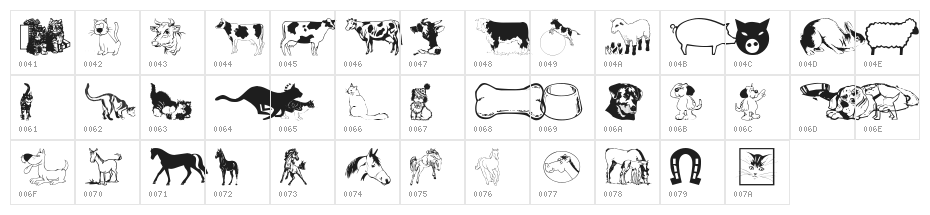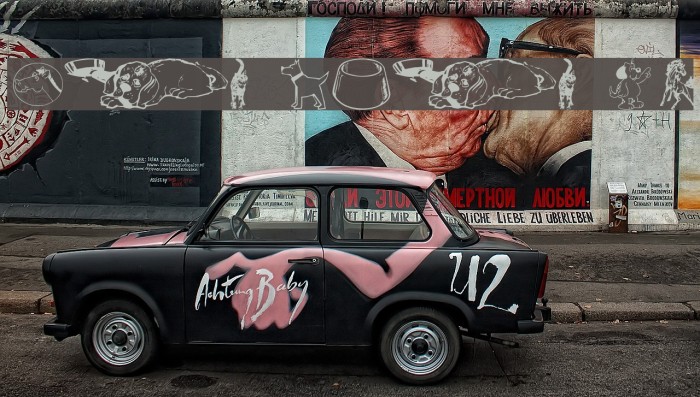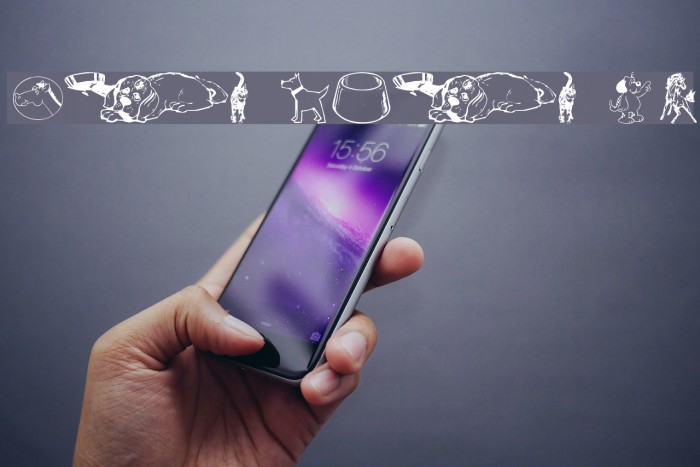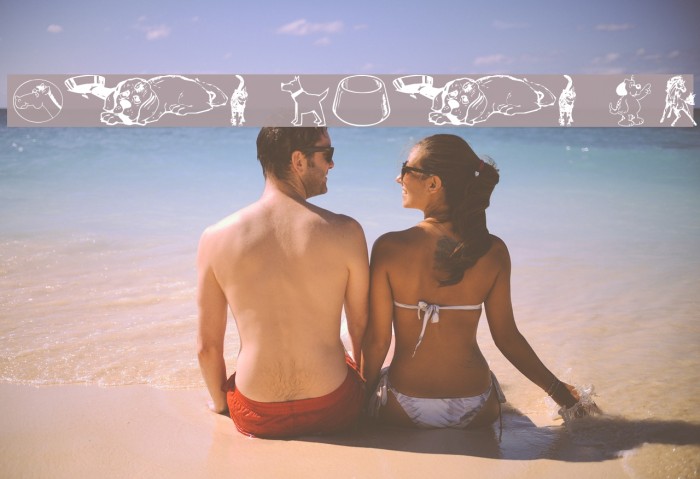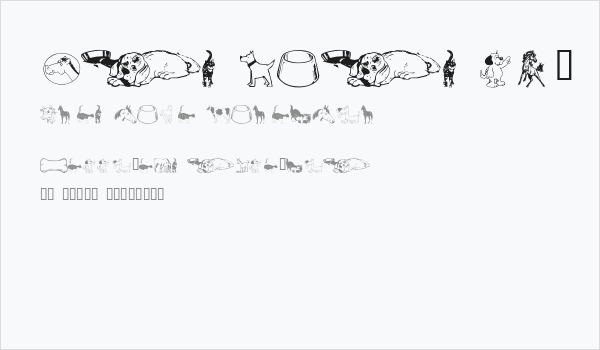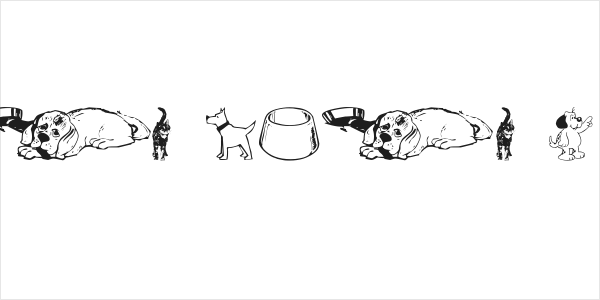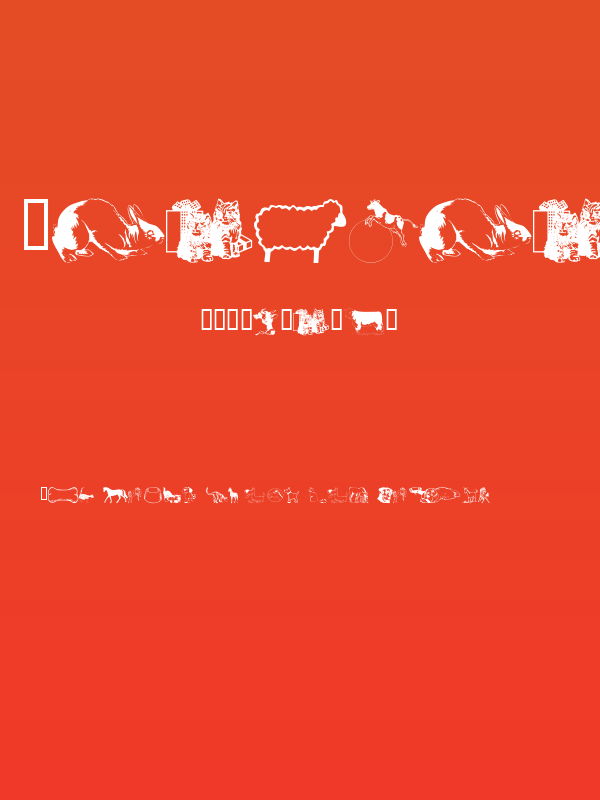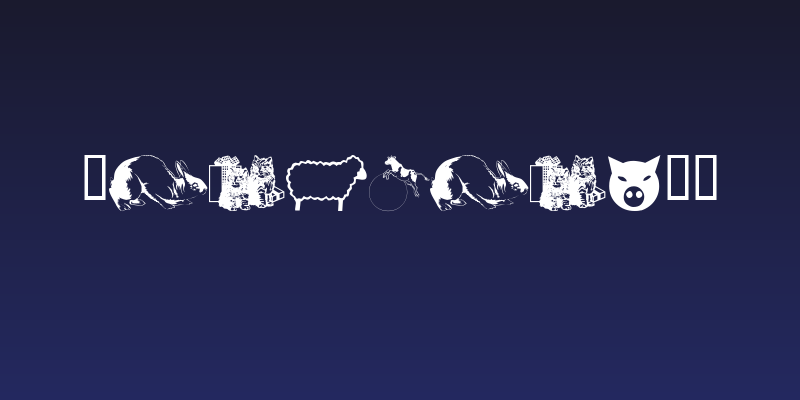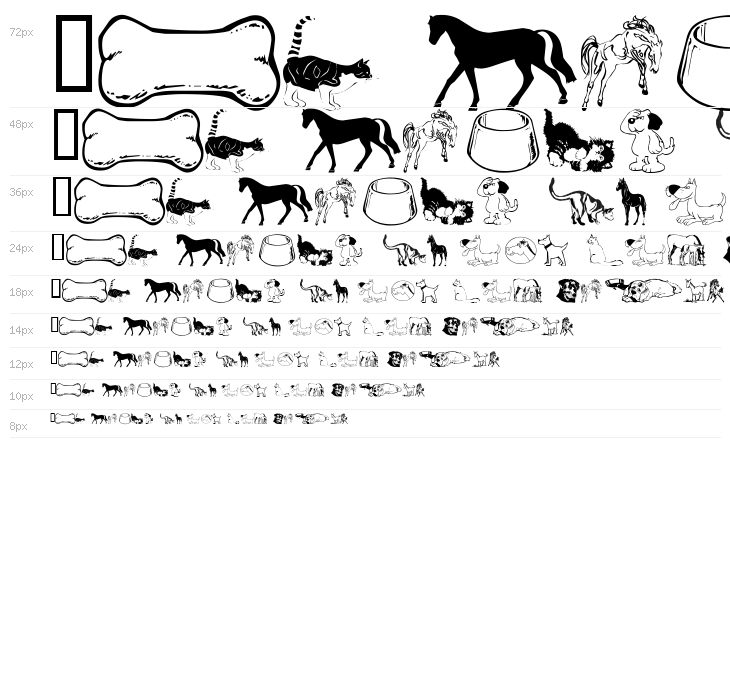
wmanimals1 Font
wmanimals1 Description
A decorative dingbat font featuring a variety of farm and domestic animal illustrations, including cows, pigs, sheep, cats, dogs, horses, and related objects like bones, bowls, and horseshoes. Each character is represented by a unique animal or pet-themed drawing.
| Overall Style | Decorative, Playful |
| Use Case | Illustrative elements, icons, decorative headings, thematic graphics. |
| Proposed Projects | ChildrenΓ’β¬β’s books, educational materials, animal-themed party invitations, pet store branding, farm-related signage. |